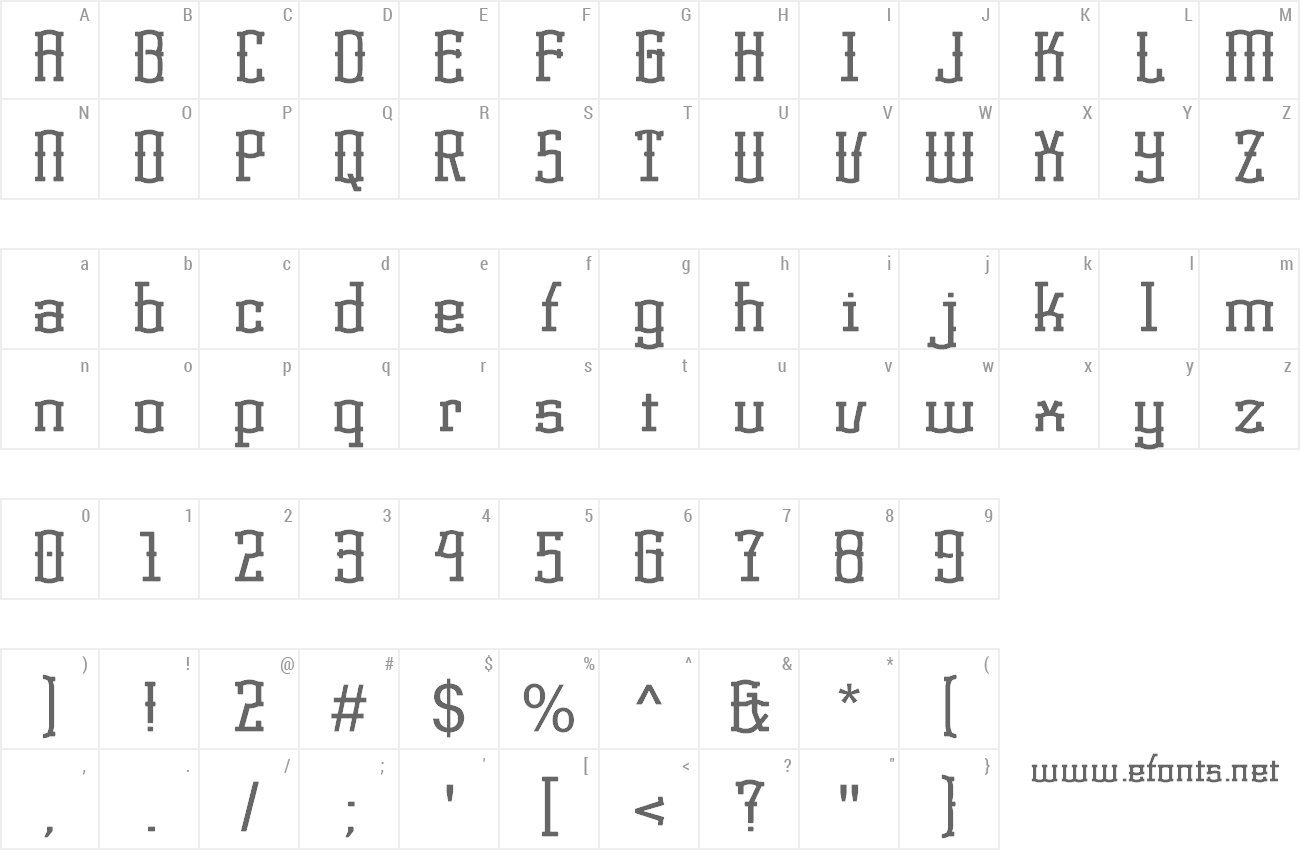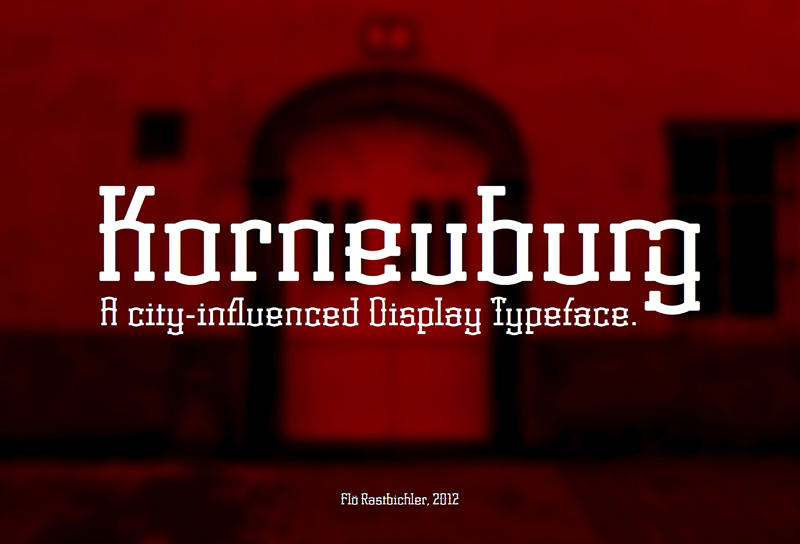
Korneuburg Display - a city-influenced display typeface. Korneuburg Display was created as a semester project at New Design University, St. Pölten, Austria. The goal was to create a modular typeface that is inspired by a city. It is heavily influenced by the neoclassicist city Korneuburg in Lower Austria and especially the forms of it's multiple archways. |